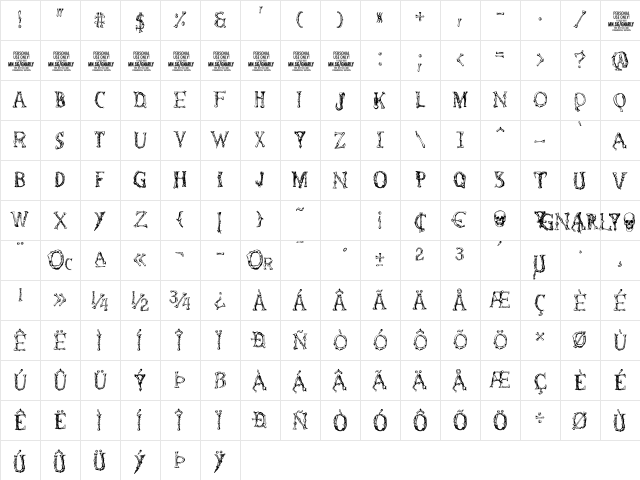
Complete Gnarly Spine PERSONAL USE Regular glyph index. Displaying only characters natively supported by Gnarly Spine PERSONAL USE Regular font.
Gnarly Spine PERSONAL USE is a composed and adaptable typeface that performs quietly and consistently across a wide range of design contexts.